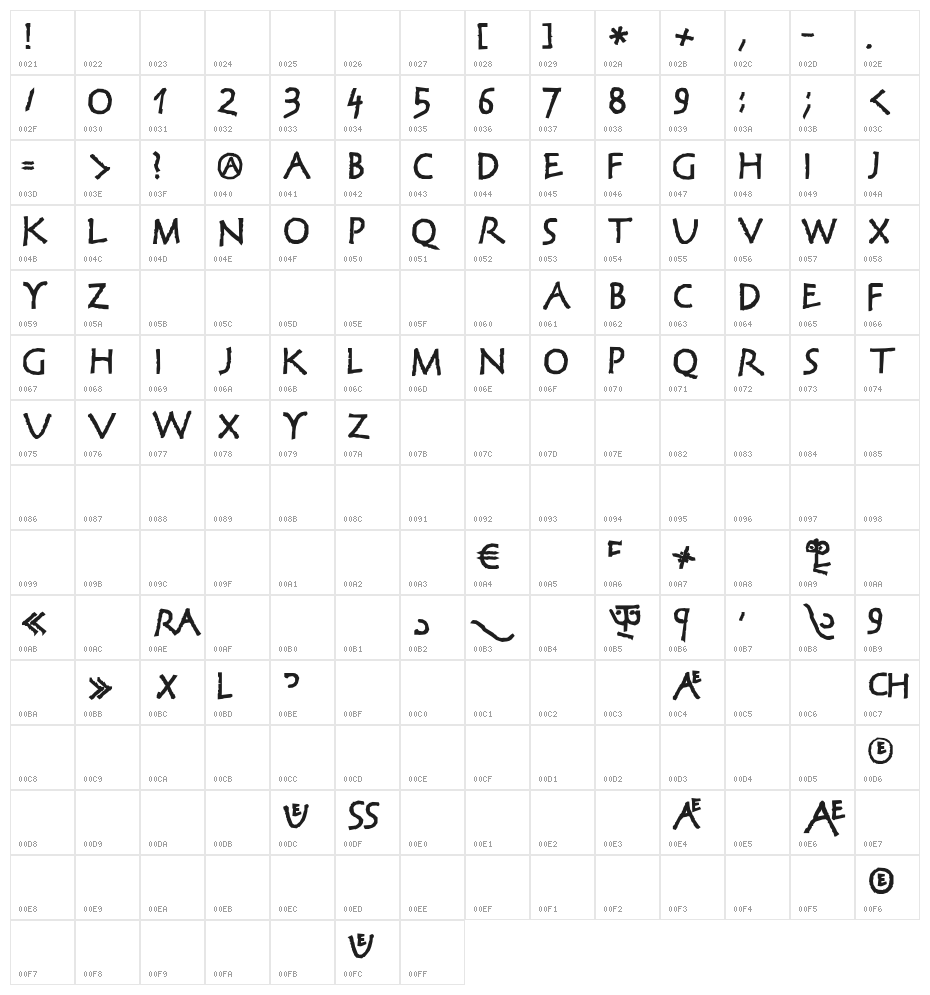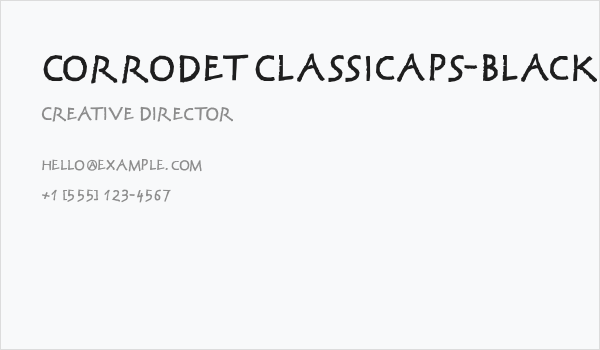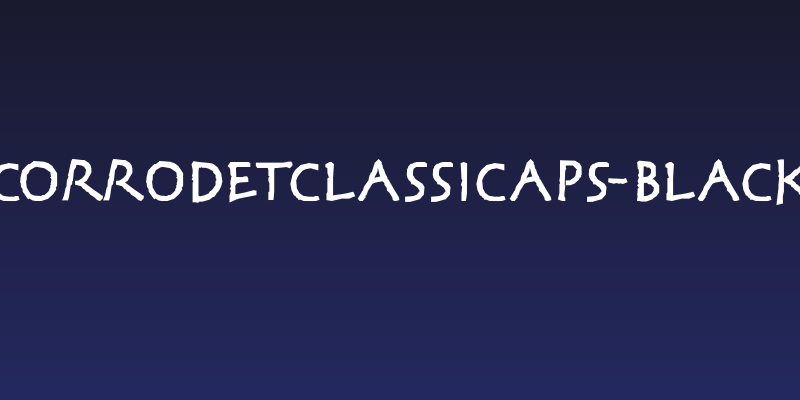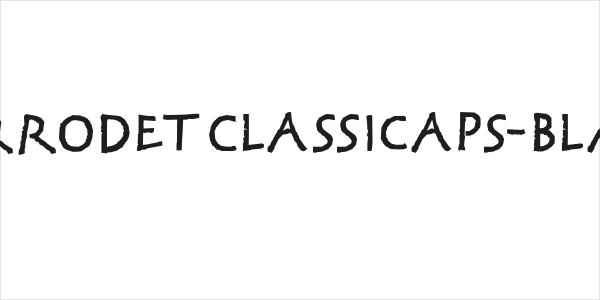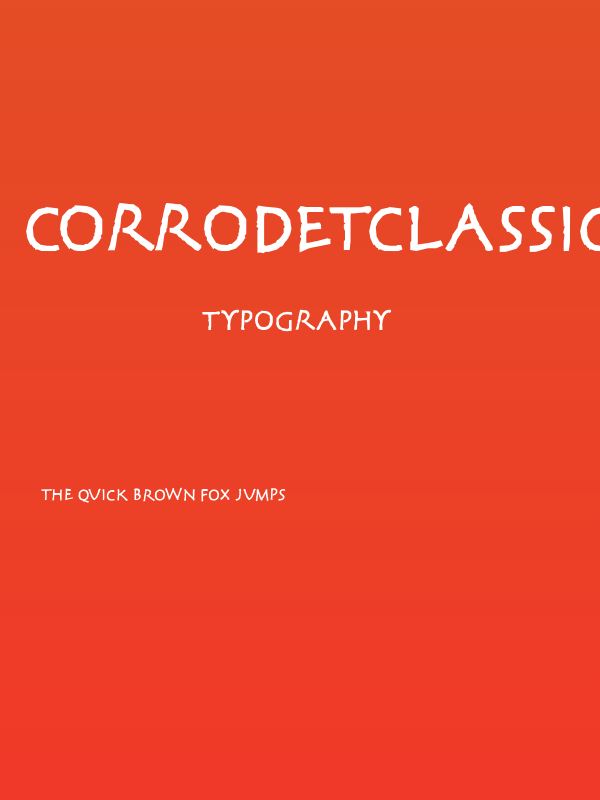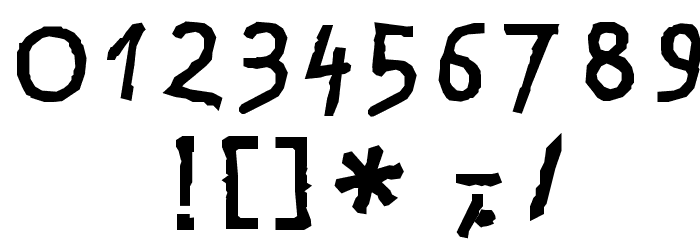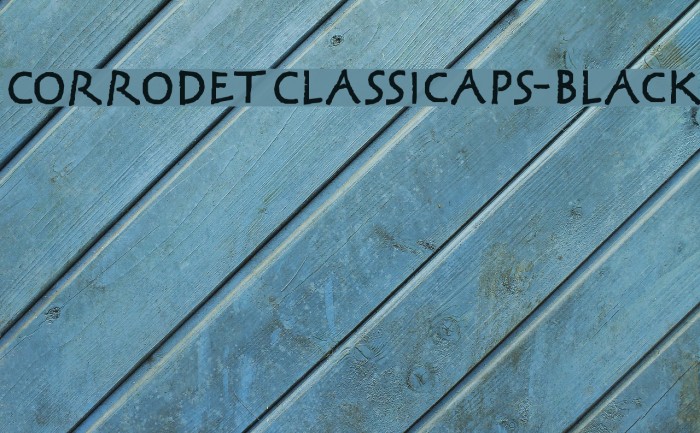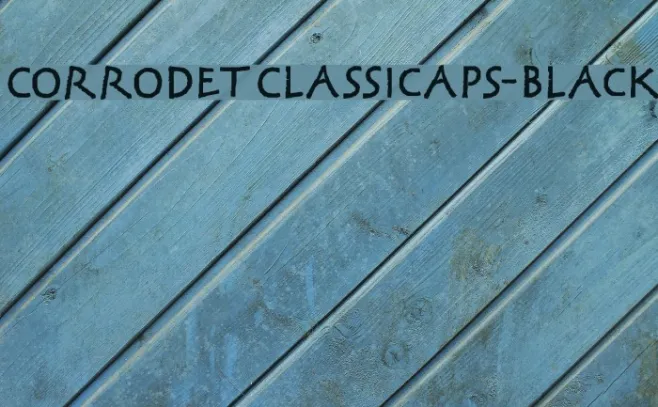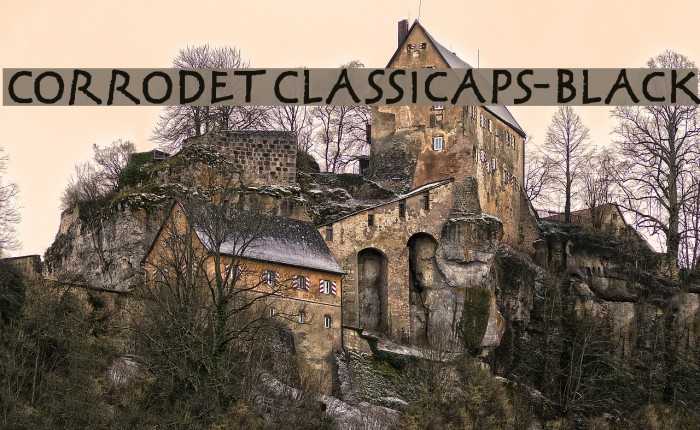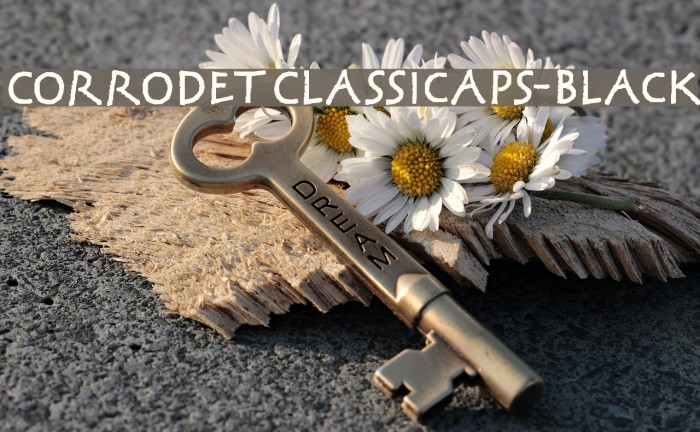
CorrodetClassicaps-Black Font
CorrodetClassicaps-Black Description
This font features a bold, hand-drawn style with a rough, textured appearance that gives it a unique, rustic charm. The uppercase and lowercase letters exhibit a consistent, slightly irregular stroke pattern, adding to its handcrafted feel. The numerals and special characters maintain the same rugged aesthetic, making the font versatile for creative projects. The overall look is reminiscent of ancient scripts, yet it retains a modern edge, making it suitable for a variety of design applications. Its distinctive character makes it ideal for projects that require a touch of authenticity and personality.
| Overall Style | Rustic, Handcrafted |
| Proposed Projects | Ideal for branding, posters, book covers, and any design requiring a handcrafted, authentic look. |